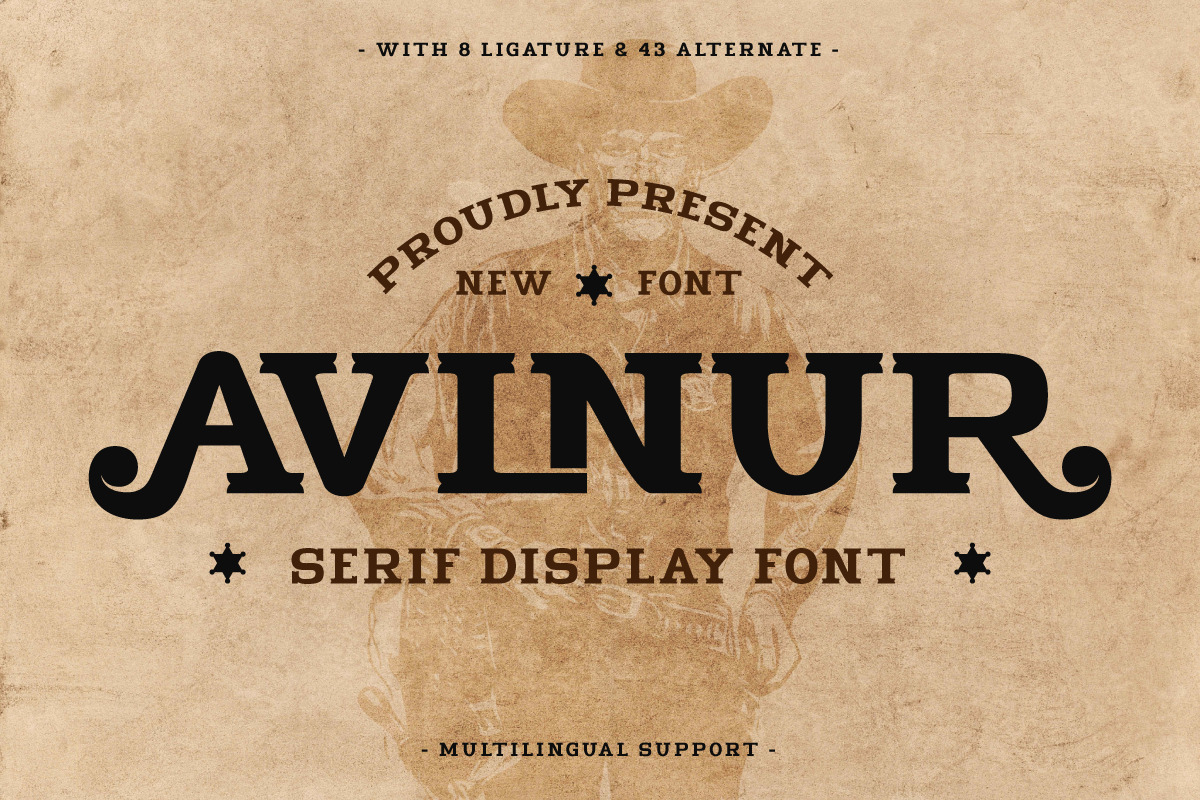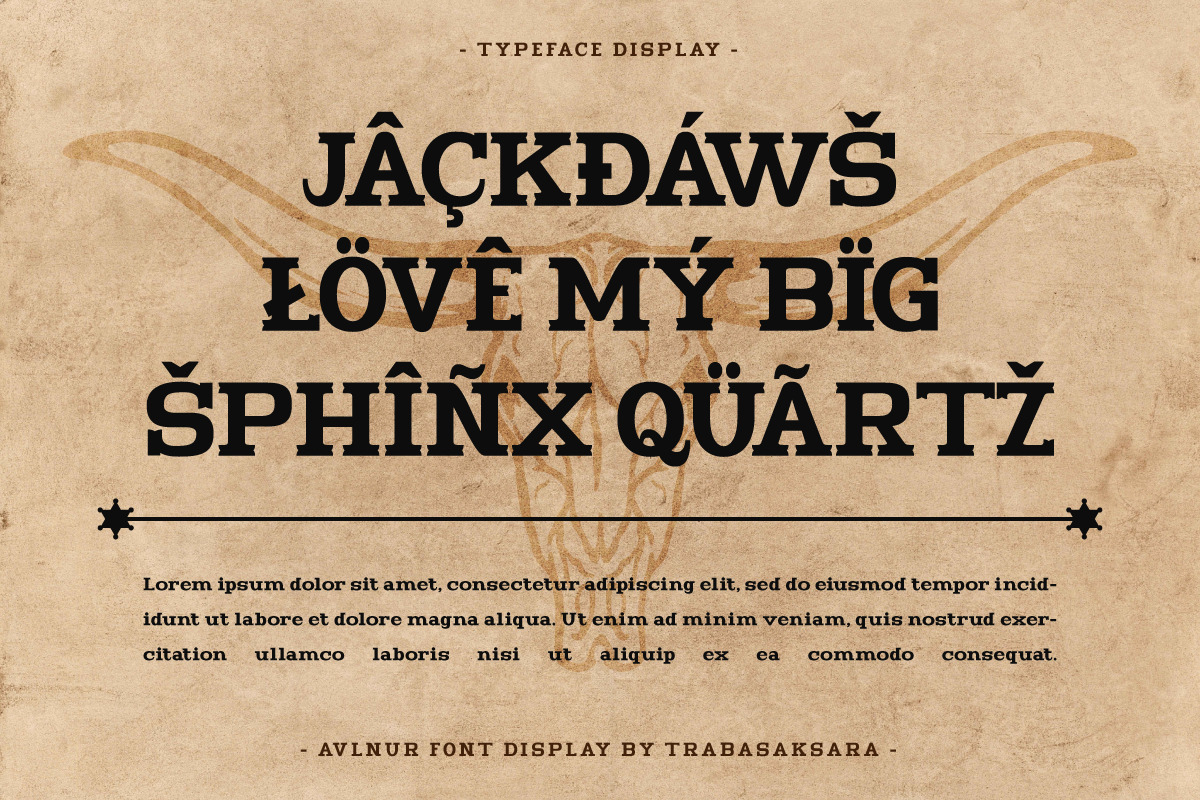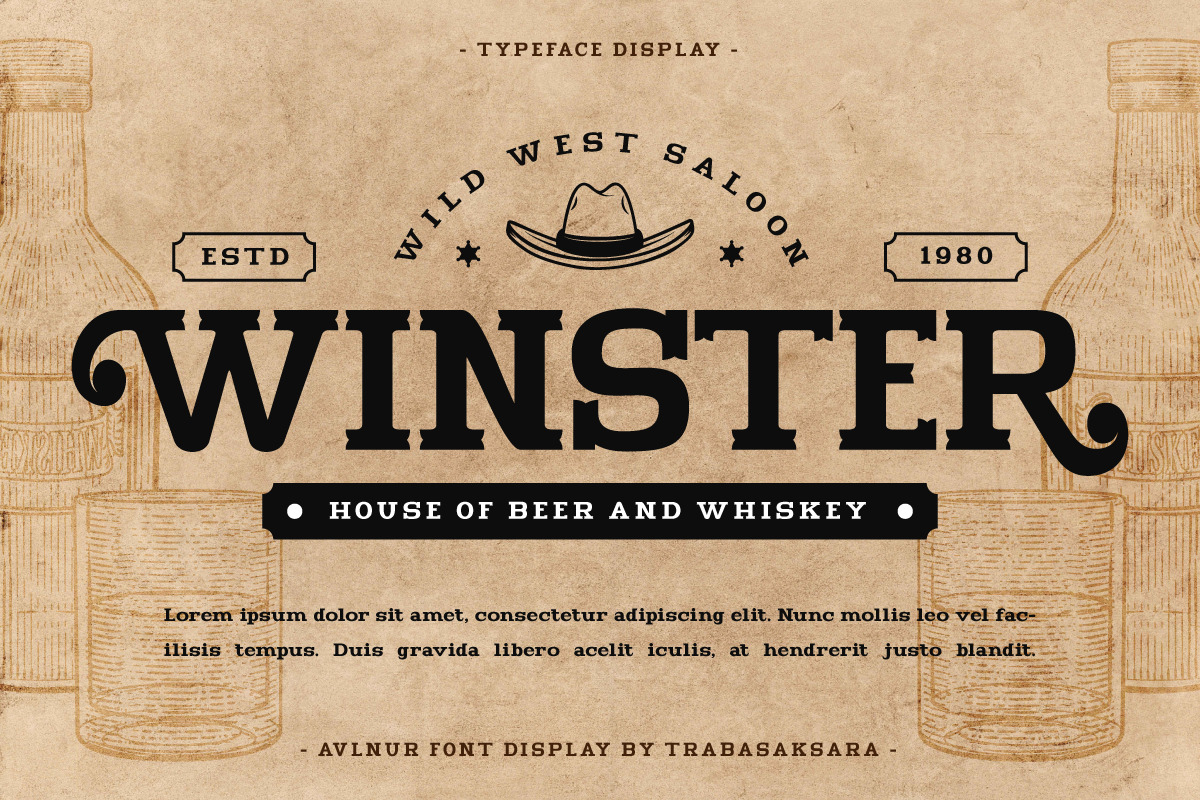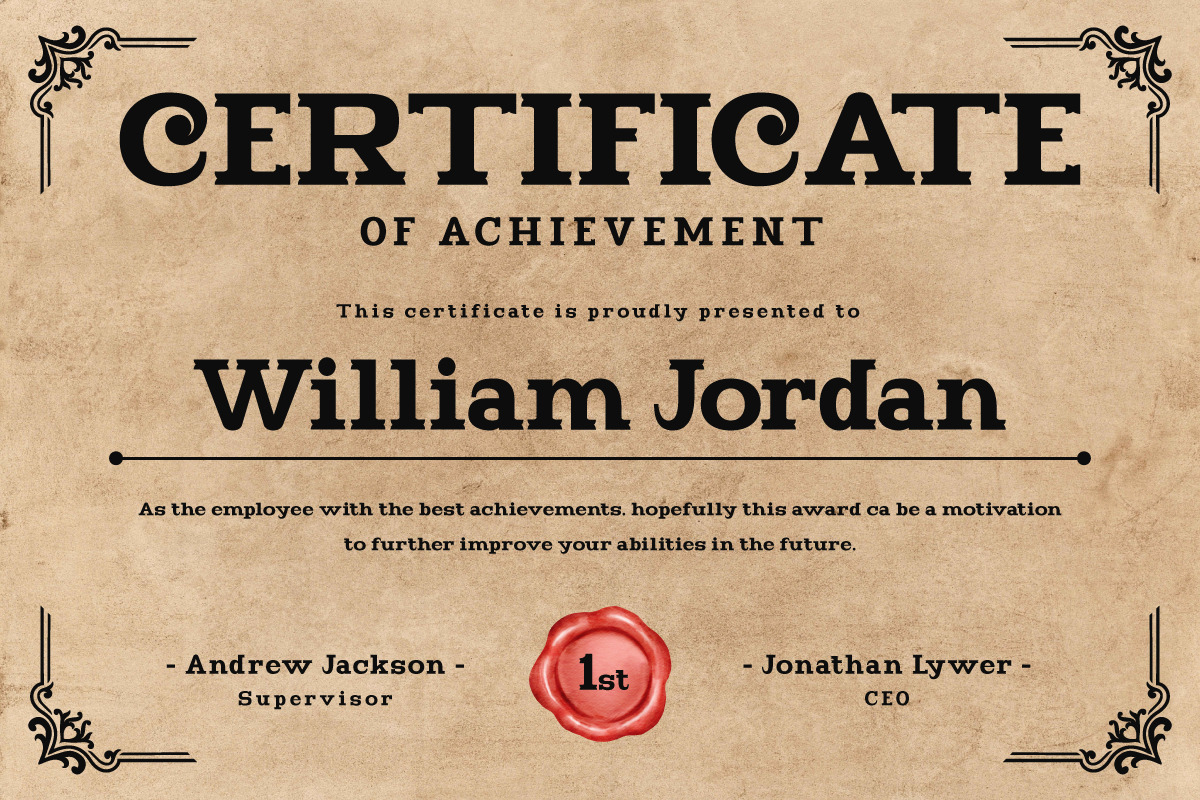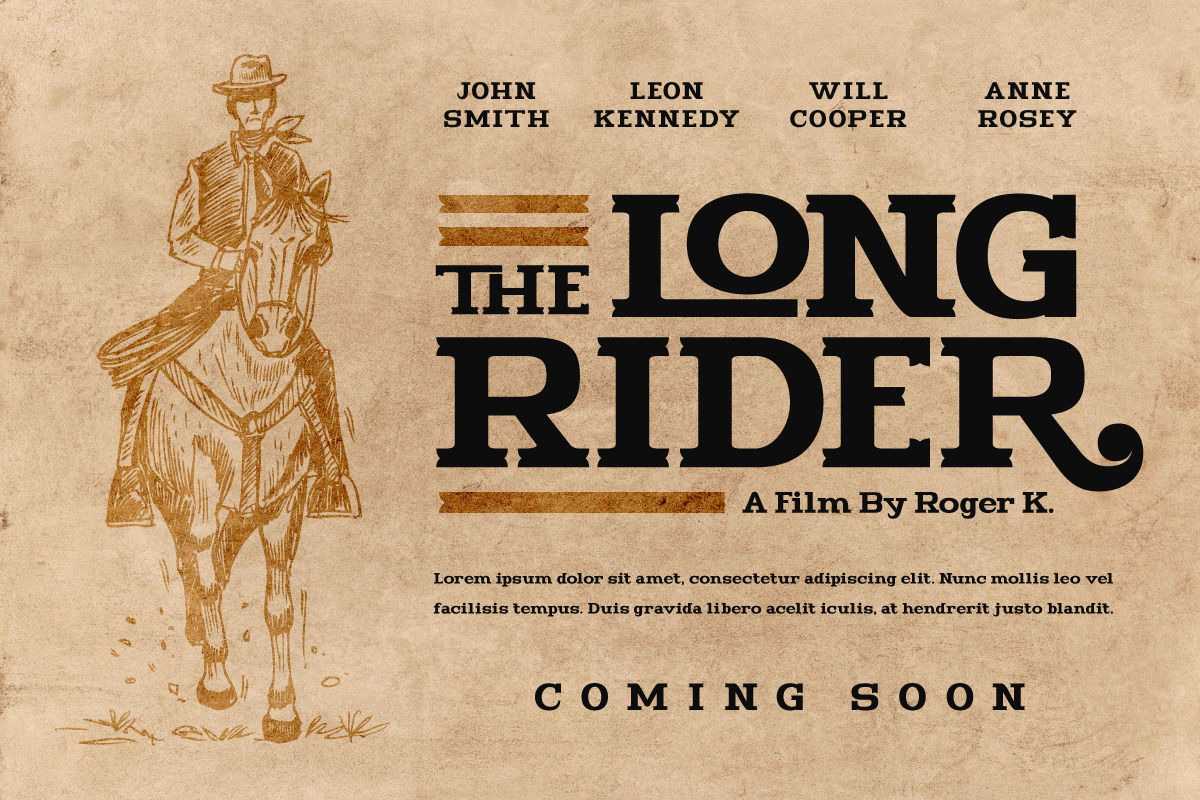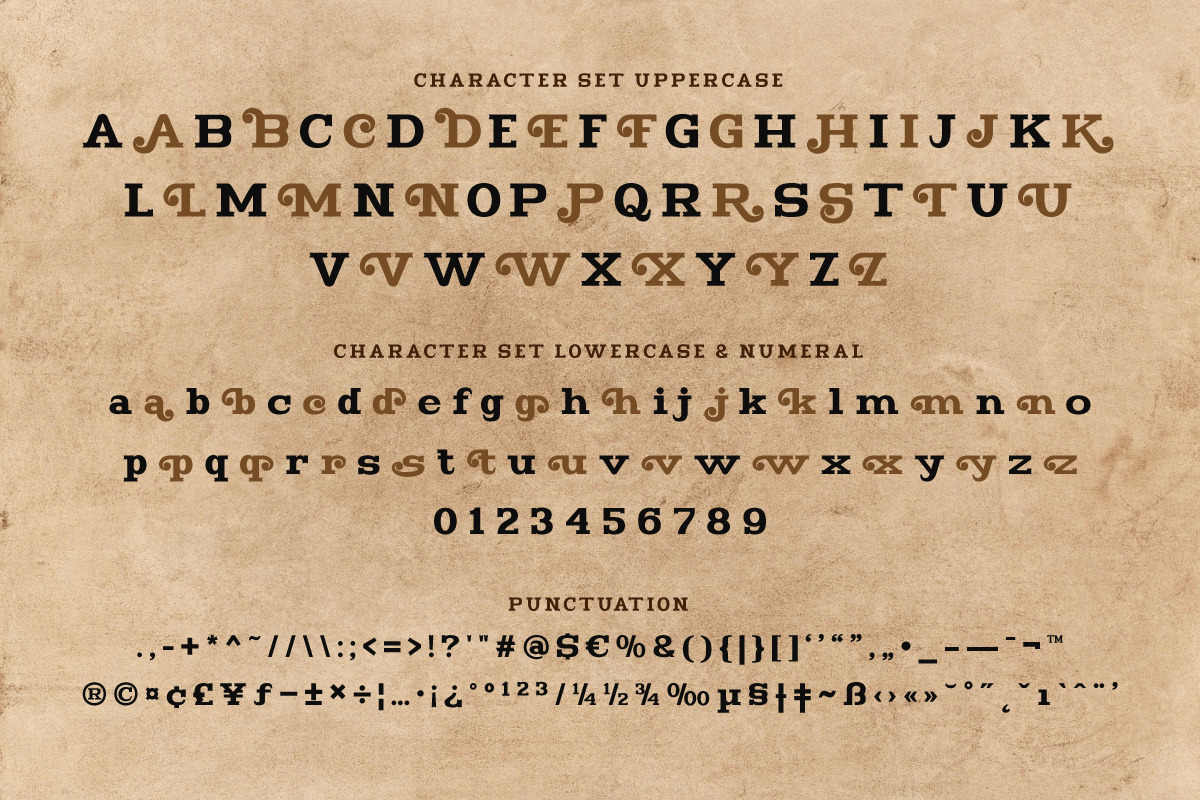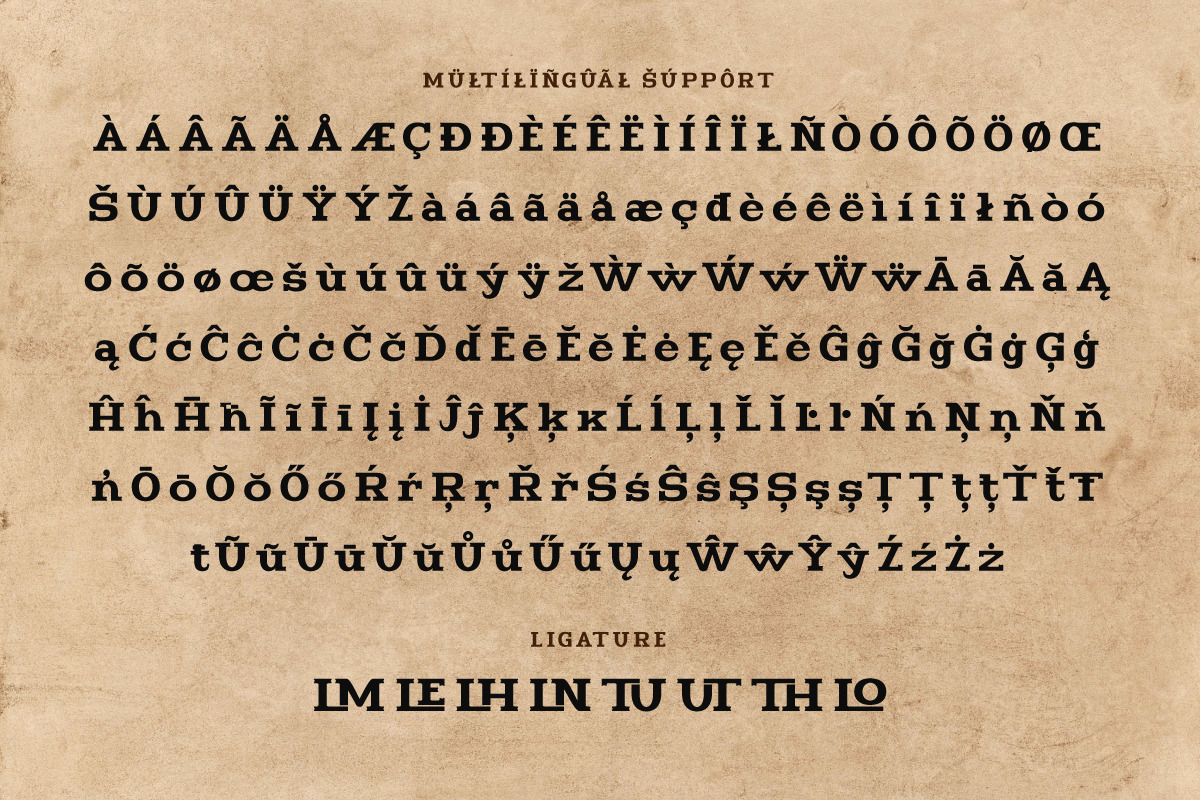
Avlnur - Serif Display Font
Introducing Avlnur Font, a stunning and captivating typeface that will elevate your design projects to new heights. With its unique blend of elegance and modernity, Avlnur Font is the perfect choice for those seeking a distinctive and attention-grabbing typography solution.
Avlnur Font features beautifully crafted letterforms that exude sophistication and style. Its graceful curves and precise details make it suitable for a wide range of design applications, including branding, logo design, packaging, and more. Whether you're creating a refined invitation or a striking headline, Avlnur Font will leave a lasting impression on your audience.
With its versatility and versatility, Avlnur Font allows you to express your creativity and make a bold statement in your designs. It's the ideal choice for individuals and businesses looking to stand out from the crowd and leave a memorable impression.
Don't settle for ordinary fonts when you can make a statement with Avlnur Font. Explore the endless possibilities and transform your designs into works of art. Experience the beauty and impact of Avlnur Font for yourself and captivate your potential customers in just 60 seconds.